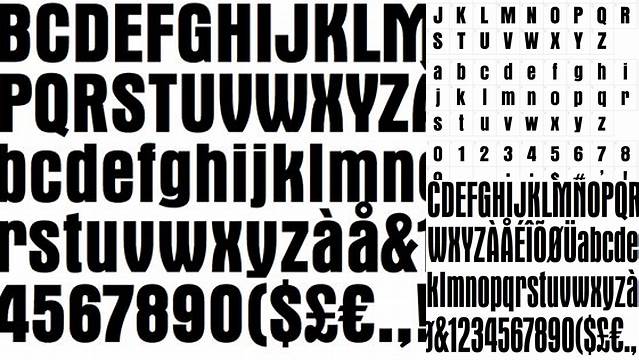
Unveiling the Aurora Std Bold Condensed Font
Hey guys! Today, we're diving deep into the world of typography, and specifically, we're going to talk about a font that's been making waves for its distinctive style: Aurora Std Bold Condensed. If you're on the hunt for a typeface that screams modernity, boldness, and a touch of sophisticated flair, then you've definitely landed in the right place. This font isn't just another collection of letters; it's a design tool that can elevate your projects from ordinary to absolutely unforgettable. Its condensed nature means it packs a punch in tight spaces, making it incredibly versatile for everything from eye-catching headlines to compact but impactful body text. We'll explore what makes Aurora Std Bold Condensed so special, where you can snag a free download, and how to best utilize its unique characteristics to make your designs truly shine. Get ready to discover a font that might just become your new favorite go-to!
Why Aurora Std Bold Condensed Stands Out
What makes Aurora Std Bold Condensed a real winner in the crowded font market, you ask? Well, it’s all about its unique combination of characteristics. Firstly, the 'Bold' aspect means it carries significant visual weight. This isn't a shy font; it's one that commands attention. Whether you're designing a poster, a website banner, or even a social media graphic, the boldness ensures your message cuts through the visual noise. Then there's the 'Condensed' part. This is where the magic really happens for space-saving and impact. Condensed fonts, by their very nature, are narrower than their standard counterparts. This allows you to fit more text into a limited area without sacrificing readability or aesthetic appeal. Think about those jam-packed magazine spreads or the tight confines of a mobile app interface – this is precisely where Aurora Std Bold Condensed flexes its muscles. The synergy between the bold weight and the condensed form creates a powerful, dynamic presence. It’s a font that’s both strong and economical, a rare and valuable combination for any designer. Plus, its aesthetic is often described as clean and modern, with a certain geometric sensibility that makes it feel contemporary and relevant. It’s not overly decorative, which means it integrates well into a variety of design contexts, from corporate branding to creative editorial layouts. This makes it a super flexible tool in your design arsenal, guys. It’s the kind of font that doesn’t just fill space; it defines it, adding structure and visual interest simultaneously. We’re talking about a font that can handle serious design challenges and still look utterly fabulous doing it. So, if you’re looking for a font that brings both strength and clever design to the table, Aurora Std Bold Condensed is definitely worth a closer look. It’s the kind of font that designers rave about because it solves problems while looking incredibly stylish.
Best Use Cases for Aurora Std Bold Condensed
So, you’ve got the Aurora Std Bold Condensed font, and you’re wondering, “What can I actually do with this thing?” Great question! This font is incredibly versatile, but its unique characteristics make it particularly suited for certain applications. Let’s break down some of the best use cases, guys.
Impactful Headlines and Titles
This is arguably where Aurora Std Bold Condensed truly shines. Its bold weight and condensed form create an immediate visual impact, making it perfect for grabbing attention. Think magazine covers, newspaper mastheads, website hero sections, book titles, and poster designs. The condensed nature means you can fit longer headlines into smaller spaces without them looking cramped or losing their punch. For instance, a catchy headline like “Discover the Future of Sustainable Living” can be rendered beautifully and concisely using this font, ensuring it’s the first thing readers notice. The boldness adds a sense of urgency and importance, drawing the eye directly to your message. It’s ideal for promotional materials where you need to convey information quickly and effectively. Imagine a large, bold title on a presentation slide that immediately conveys the core topic – that’s the power of this font in action. Its clean lines also contribute to a modern aesthetic, making it suitable for tech companies, fashion brands, or any entity aiming for a contemporary image. The contrast it provides when paired with a lighter or more standard-width font for body text is also a design advantage. It helps create a clear visual hierarchy, guiding the reader’s eye through the content. You can even use different weights or styles within the Aurora family (if available) to create sophisticated typographic pairings within your headlines themselves, adding subtle variations and visual interest. The condensed aspect also works wonders for space-constrained designs like social media posts or digital ad banners where every pixel counts. It allows for prominent branding and messaging even within small rectangular formats, ensuring your brand stands out. It’s a font that’s built for making a statement, and headlines are the perfect stage for that statement.
Strong Branding and Logo Design
For businesses looking to establish a strong, memorable brand identity, Aurora Std Bold Condensed can be an excellent choice. Its distinctive look conveys confidence, stability, and a modern edge. When used in a logo, the bold, condensed letters create a compact and powerful mark that is easily recognizable and reproducible across various media, from business cards to billboards. A logo designed with this font will instantly communicate a sense of professionalism and forward-thinking. Consider a tech startup or a financial institution; the font’s clean, strong lines project reliability and innovation. The condensed nature also ensures that the brand name, even if it’s long, can be incorporated into a logo without becoming unwieldy. It offers a compact footprint, which is crucial for logo design where scalability and legibility at small sizes are paramount. You can pair it with a simpler sans-serif or a classic serif font for the company tagline or supporting text to create a balanced and sophisticated brand system. The boldness ensures the brand name itself remains the focal point. Its unique character means it won’t blend in with the sea of generic logos out there. When a potential client sees a logo rendered in Aurora Std Bold Condensed, they’ll likely perceive the brand as bold, decisive, and contemporary. It’s the kind of font that adds personality and gravitas to a brand. Think about how effective a strong, condensed font can be in creating a memorable visual signature for a company. It’s about making an instant impression, and this font is designed to do just that. It’s also fantastic for wordmarks where the typography is the logo, providing a distinct typographic voice for the brand. Brands that want to project an image of strength, efficiency, and modern sophistication will find this font to be a powerful ally in their branding efforts. It’s not just a font; it’s a statement about the brand’s identity and values, guys.
Engaging Editorial Layouts
In the realm of editorial design, such as magazines, newspapers, and even digital publications, Aurora Std Bold Condensed offers a unique way to structure content and draw readers in. Its bold weight is excellent for subheadings, pull quotes, and captions, providing visual contrast and guiding the reader’s eye through the article. The condensed form is particularly useful for fitting descriptive captions or brief biographical information for authors without taking up too much valuable layout space. Imagine a feature article where the main body text is set in a more standard font, and then key takeaways or particularly impactful quotes are highlighted using Aurora Std Bold Condensed. This creates a dynamic reading experience, breaking up the text and emphasizing important information. It adds a modern, sophisticated feel to the publication, making it more engaging and visually appealing. For digital publications, the condensed nature is a bonus, helping to optimize layouts for various screen sizes, including mobile devices, where space is often at a premium. It allows designers to incorporate more information or create bolder visual elements without overwhelming the reader. The clean, strong lines of the font also lend themselves well to creating a sense of order and clarity within complex layouts, which is crucial for readability in editorial contexts. You can use it for section titles, bylines, or even as part of a typographic system for different types of content within a publication. Its versatility allows it to be a primary display font or a strong secondary accent typeface. The contrast it offers against lighter text styles or imagery can make elements pop, ensuring that key information is easily digestible. It’s a font that helps designers craft compelling visual narratives, guiding the reader’s journey through the content in a structured yet engaging manner. It’s the kind of font that makes a magazine feel current and a website feel professional and easy to navigate. So, for guys who are into magazine design or digital publishing, this font is a real gem for adding that extra bit of polish and impact, making your layouts stand out from the crowd. It’s all about creating a visual hierarchy that is both functional and aesthetically pleasing, and Aurora Std Bold Condensed does that brilliantly.
Concise Web and UI Design Elements
In the fast-paced world of web and user interface (UI) design, efficiency and clarity are king. Aurora Std Bold Condensed is a fantastic asset for these digital environments. Its condensed nature means you can display important information like button labels, navigation items, form field labels, and short descriptions without them taking up too much screen real estate. This is especially critical for responsive design, ensuring your website or app looks great and functions well on all devices, from large desktop monitors to small smartphone screens. The bold weight ensures that these critical UI elements are easily readable, even at smaller sizes or in less-than-ideal viewing conditions. Think about the main call-to-action buttons on a webpage – you want them to be noticeable and clear, and this font can deliver that punch. For web designers and app developers, having a font that is both space-efficient and highly legible is a huge advantage. It allows for cleaner, less cluttered interfaces, which generally leads to a better user experience. The modern, geometric aesthetic of Aurora Std Bold Condensed also fits perfectly with contemporary digital design trends. It can be used to create clear typographic hierarchies, distinguishing headings from body text and interactive elements from static content. Its strong presence makes it suitable for menu items or tab labels that need to be easily scanned and understood by the user. Furthermore, when designing error messages or confirmation dialogues, the boldness can help convey the importance or urgency of the message effectively. It’s a font that helps you pack a lot of information and functionality into a small digital space, making your interfaces intuitive and user-friendly. Guys, if you're working on a website or an app and need text that is both impactful and economical, this font is definitely one to consider. It’s about making every pixel work harder, ensuring that your design is not only aesthetically pleasing but also highly functional and easy for users to interact with. It's a practical choice for creating smooth, efficient digital experiences that keep users engaged.
Pairing Aurora Std Bold Condensed with Other Fonts
To truly unlock the potential of Aurora Std Bold Condensed, learning how to pair it effectively with other typefaces is key, guys. This font, with its strong personality, can sometimes dominate a design, so choosing complementary fonts is crucial for creating balance and visual harmony. Let’s explore some smart pairing strategies.
If you’re looking for something with a slightly more geometric or industrial edge, you might consider fonts like Impact (though it’s quite dated, its influence is undeniable), or perhaps explore some of the more specialized condensed offerings on font marketplaces. Some foundries release highly condensed versions of their popular sans-serif families, which might capture a similar essence to Aurora Std Bold Condensed.